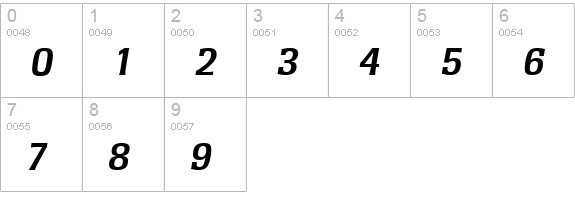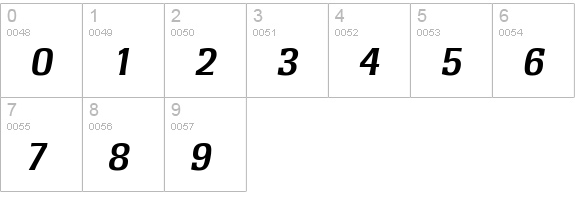
RochesterSerial-BoldItalic Font Details
RochesterSerial-BoldItalic font is a bold and elegant typeface that exudes sophistication and charm. Its distinctive italicized style adds a touch of flair to any design project. This font is perfect for creating eye-catching headlines, branding materials, and invitations that demand attention. The best part? RochesterSerial-BoldItalic font is available for free download at FontsMarket.com. Now you can elevate your designs without breaking the bank. Don't miss out on this opportunity to add a touch of class to your projects with this stunning font. Download RochesterSerial-BoldItalic today and let your creativity shine!